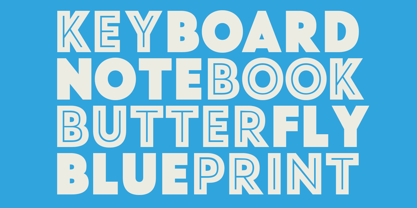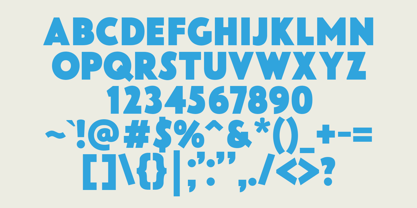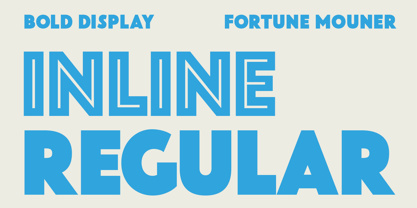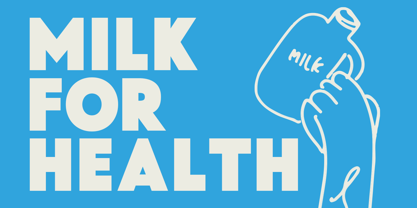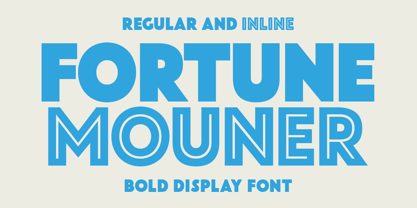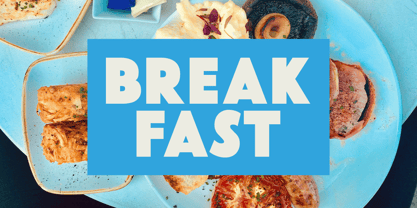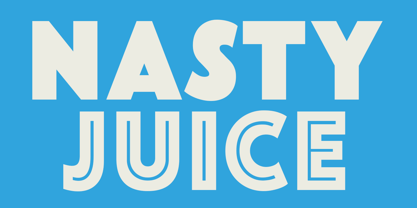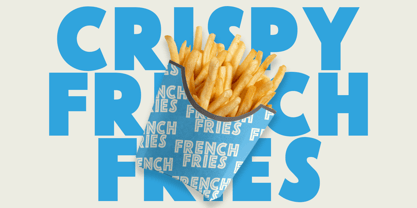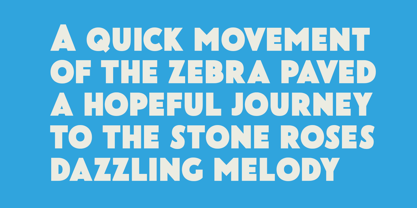
Fortune Mouner
by Viswell
The Fortune Mouner Font Family was designed by Najril Ilham Amrullah and published by Viswell. Fortune Mouner contains 2 styles and family package options. More about this family
Fortune Mounter is a bold display font that demands attention and delivers style. With its clean, geometric shapes and versatile "Regular" and "Inline" styles, this font is perfect for a wide range of creative projects, including posters, branding, headlines, packaging, and social media graphics. Its eye-catching design brings modern sophistication and a retro touch to your typography, making it an excellent choice for projects that need bold visual impact. Fortune Mounter is easy to use and highly legible, ensuring your message stands out in every application.
Designers: Najril Ilham Amrullah
Foundry: Viswell